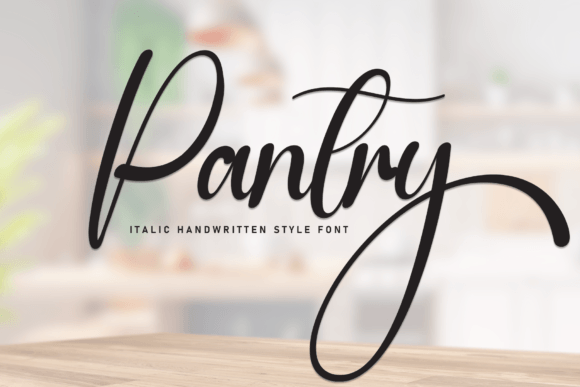
Behold, the Pantry Font, a handwritten masterpiece that oozes charm and warmth, inviting you to embrace the art of expression. Crafted by the ingenious William Jhardy, this script font exudes a friendly and playful aura, making it the perfect choice to add a touch of whimsy to your creative projects.
Immerse yourself in the enchanting world of Pantry, where words dance and emotions flow freely. Its delightful curves and charming imperfections evoke a sense of nostalgia, reminiscent of handwritten letters from a cherished friend. Whether you're designing wedding invitations, greeting cards, or embarking on any project that craves a personal touch, Pantry will elevate your designs to new heights of artistry.
With its playful and inviting nature, Pantry is the perfect font for capturing the attention of your audience. Its captivating presence demands attention, making it ideal for creating eye-catching logos, social media posts, and marketing materials. Let Pantry be your secret weapon to leave a lasting impression on your customers or audience.
Pantry's versatility extends far beyond the realm of digital design. Unleash your creativity and bring Pantry to life in the tangible world. Use it to craft personalized cards for your loved ones, create unique signage for your home or business, or design eye-catching t-shirts that reflect your playful personality. The possibilities are endless, limited only by your imagination.
So why settle for ordinary fonts when you can embrace the extraordinary charm of Pantry? Let its enchanting strokes and playful style transform your designs, adding a touch of magic to every project. Discover the joy of self-expression with Pantry Font, where creativity meets delight.